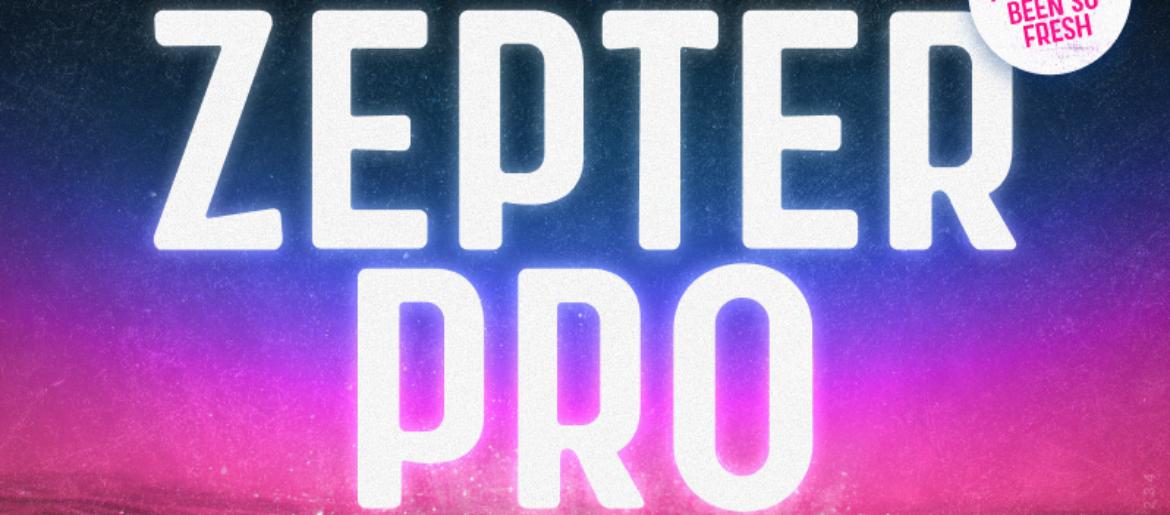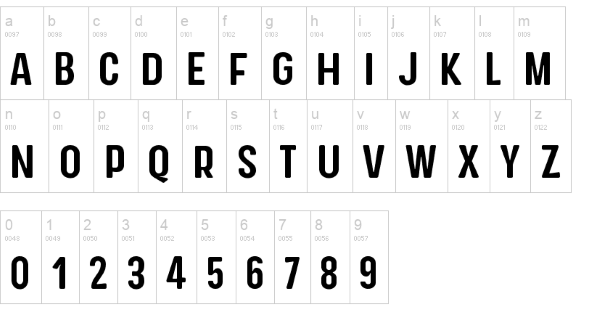
Zepter Pro Font
Zepter Pro font
Zepter Pro Font is a modern display typeface that blends vintage character with contemporary clarity. Its playful yet confident personality makes it ideal for logos, headlines, and bold branding. With carefully balanced letterforms, Zepter Pro delivers strong visual impact at large sizes while staying clean, readable, and effective across both print and digital design projects.
➤ Style: Sans serif
Zepter Pro font